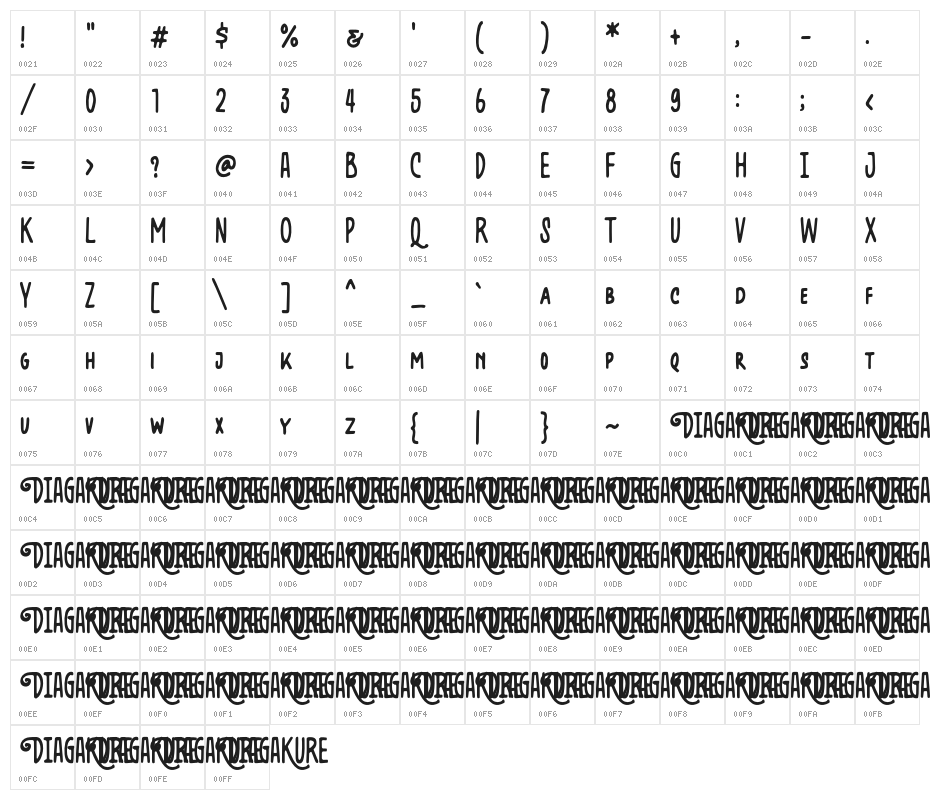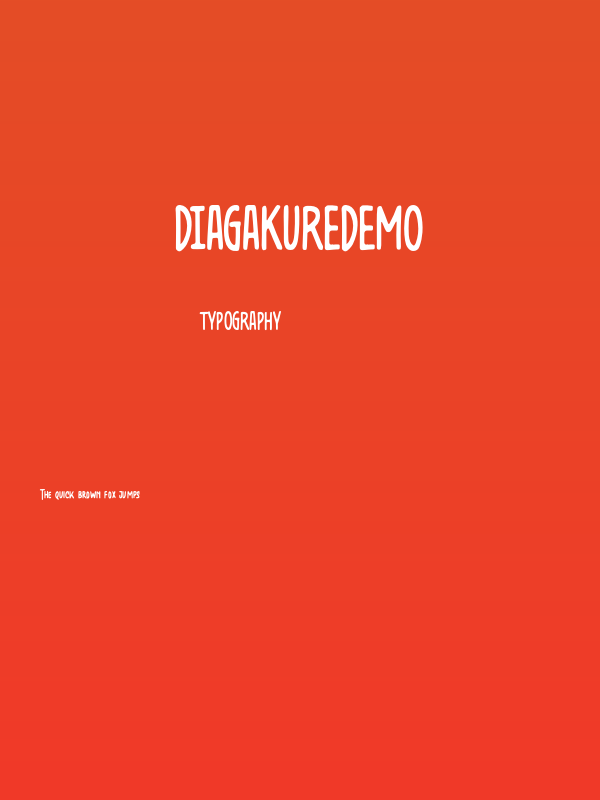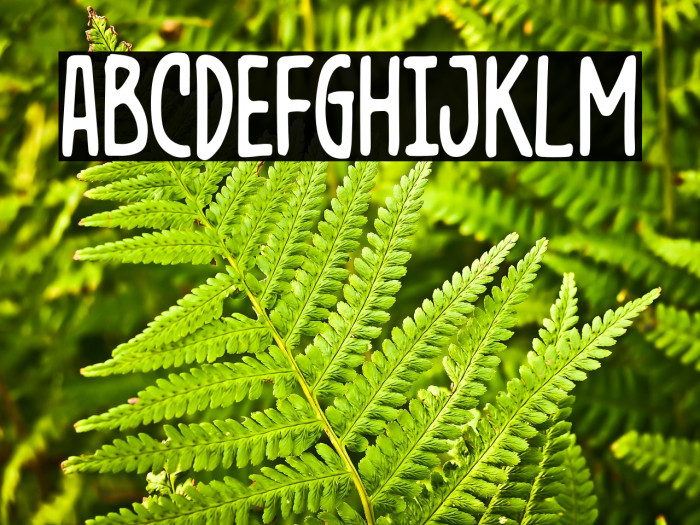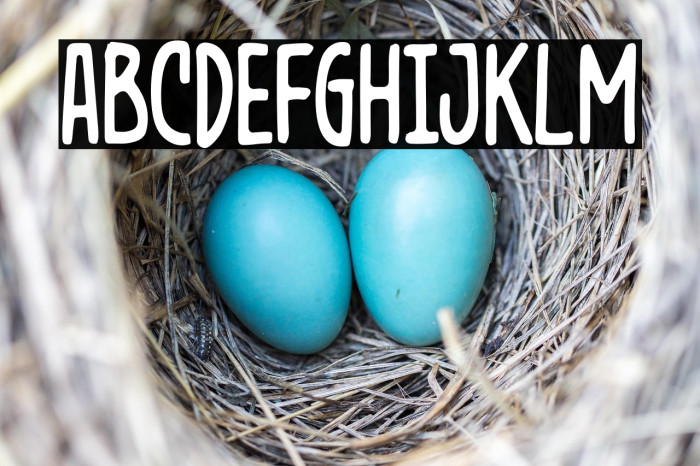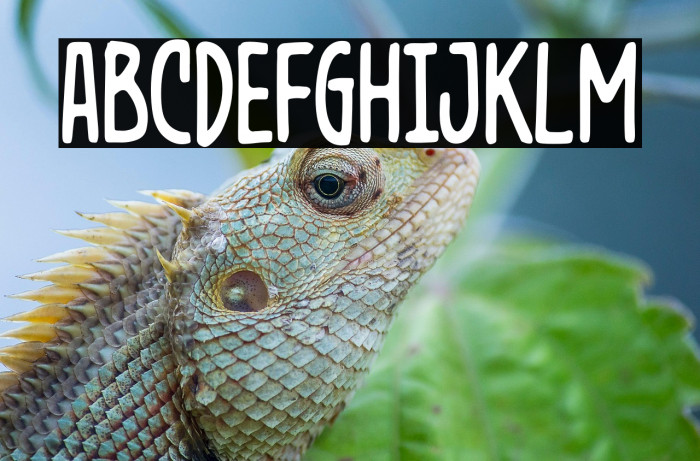
DiagakureDemo Font
DiagakureDemo Description
This font features a playful and bold handwritten style, characterized by its rounded and slightly irregular letterforms. The uppercase and lowercase letters maintain a consistent thickness, giving it a cohesive look. The numbers and special characters follow the same design principles, ensuring uniformity across all glyphs. The font's informal and friendly appearance makes it suitable for creative and casual applications. Its readability is enhanced by the clear distinction between characters, despite the playful design.
| Use Case | Logos, Headlines, Informal Text |
| Proposed Projects | Ideal for children's books, playful branding, greeting cards, and casual invitations. |